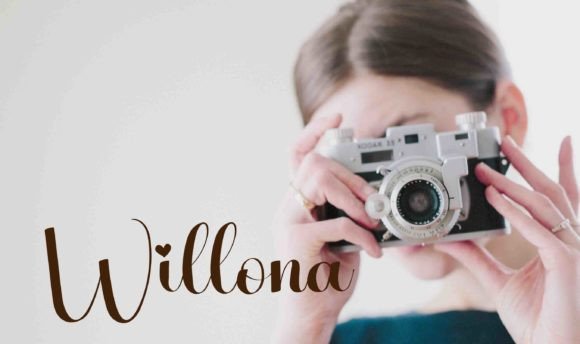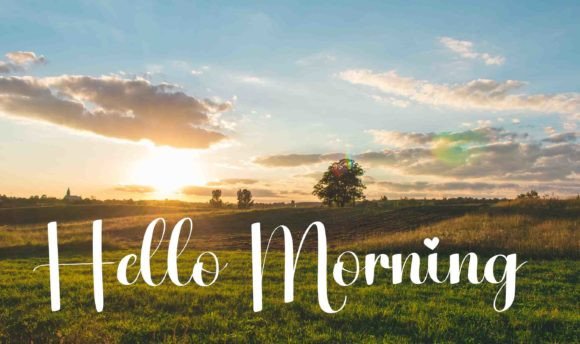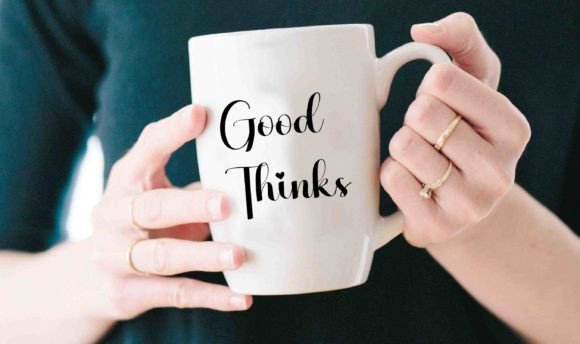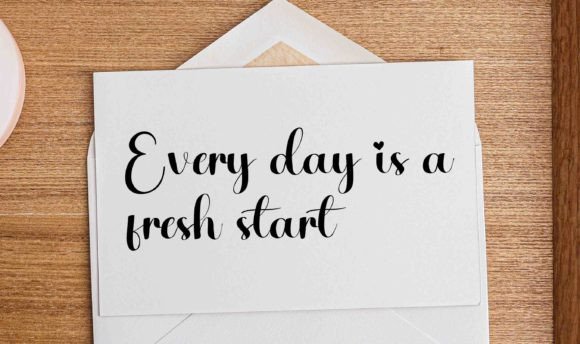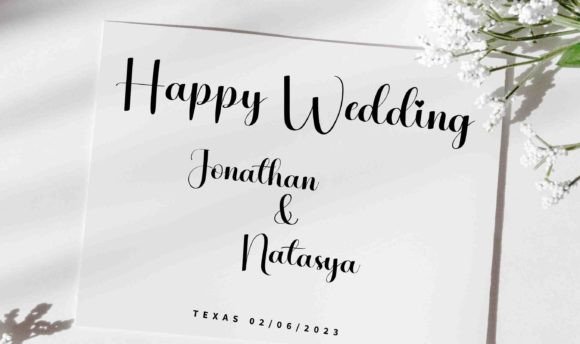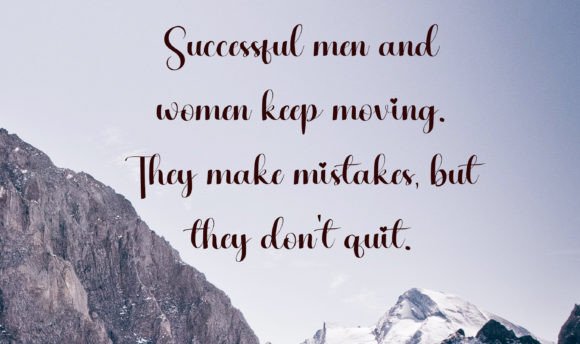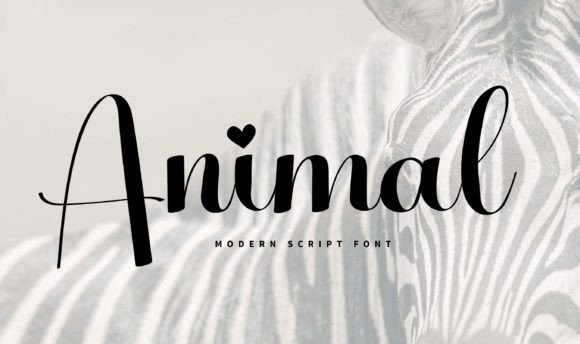
Introducing Animal Font: The Cute and Elegant Handwritten Font for Your Creative Projects
Are you a designer, crafter, or DIY enthusiast looking for a font that can add a touch of sweetness and elegance to your creative projects? Look no further than Animal Font, a cute and simple handwritten font that has a wide spectrum of applications. In this article, we’ll explore the features and benefits of Animal Font, and show you how it can be used to create beautiful and eye-catching designs.
What is Animal Font?
Animal Font is a handwritten font that is characterized by its cute and simple design. It’s a sweet and attractive font that is perfect for writing wedding invitations, cards, logos, quotes, or other designs that may require a touch of beauty and elegance. The font has a unique and charming style that is sure to capture the attention of your audience.
Features of Animal Font
So, what makes Animal Font so special? Here are some of its key features:
- Cute and Simple Design: Animal Font has a cute and simple design that is perfect for creating beautiful and eye-catching designs.
- Sweet and Attractive: The font has a sweet and attractive style that is sure to capture the attention of your audience.
- Handwritten Style: Animal Font is a handwritten font that gives your designs a personal and unique touch.
- Wide Spectrum of Applications: The font has a wide spectrum of applications, making it perfect for a variety of creative projects.
Benefits of Using Animal Font
So, why should you use Animal Font for your creative projects? Here are some of the benefits of using this font:
- Adds a Touch of Elegance: Animal Font adds a touch of elegance and sophistication to your designs, making them perfect for special occasions.
- Perfect for Wedding and Event Designs: The font is perfect for creating beautiful wedding invitations, cards, and other event designs.
- Easy to Read: Animal Font is easy to read, making it perfect for designs that require a clear and concise message.
- Versatile: The font is versatile and can be used for a variety of creative projects, from logos and branding to quotes and posters.
How to Use Animal Font
Using Animal Font is easy and straightforward. Here are some tips on how to use the font for your creative projects:
- Wedding Invitations: Use Animal Font to create beautiful and elegant wedding invitations that will set the tone for your special day.
- Cards and Stationery: The font is perfect for creating cute and personalized cards and stationery for special occasions.
- Logos and Branding: Use Animal Font to create unique and eye-catching logos and branding materials that will help your business stand out.
- Quotes and Posters: The font is perfect for creating inspiring quotes and posters that will capture the attention of your audience.
In conclusion, Animal Font is a cute and elegant handwritten font that is perfect for designers, crafters, and DIY enthusiasts. With its wide spectrum of applications and versatile design, the font is sure to add a touch of beauty and elegance to your creative projects. Whether you’re creating wedding invitations, cards, logos, or quotes, Animal Font is the perfect choice.